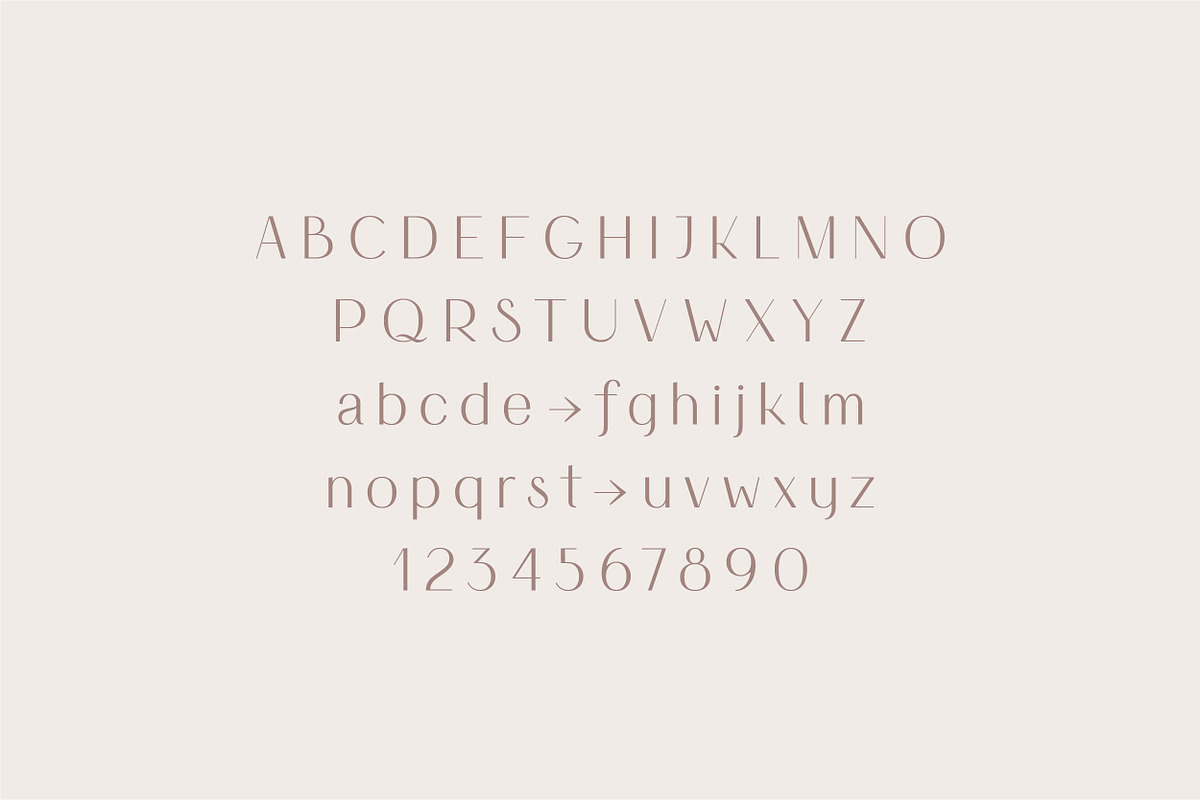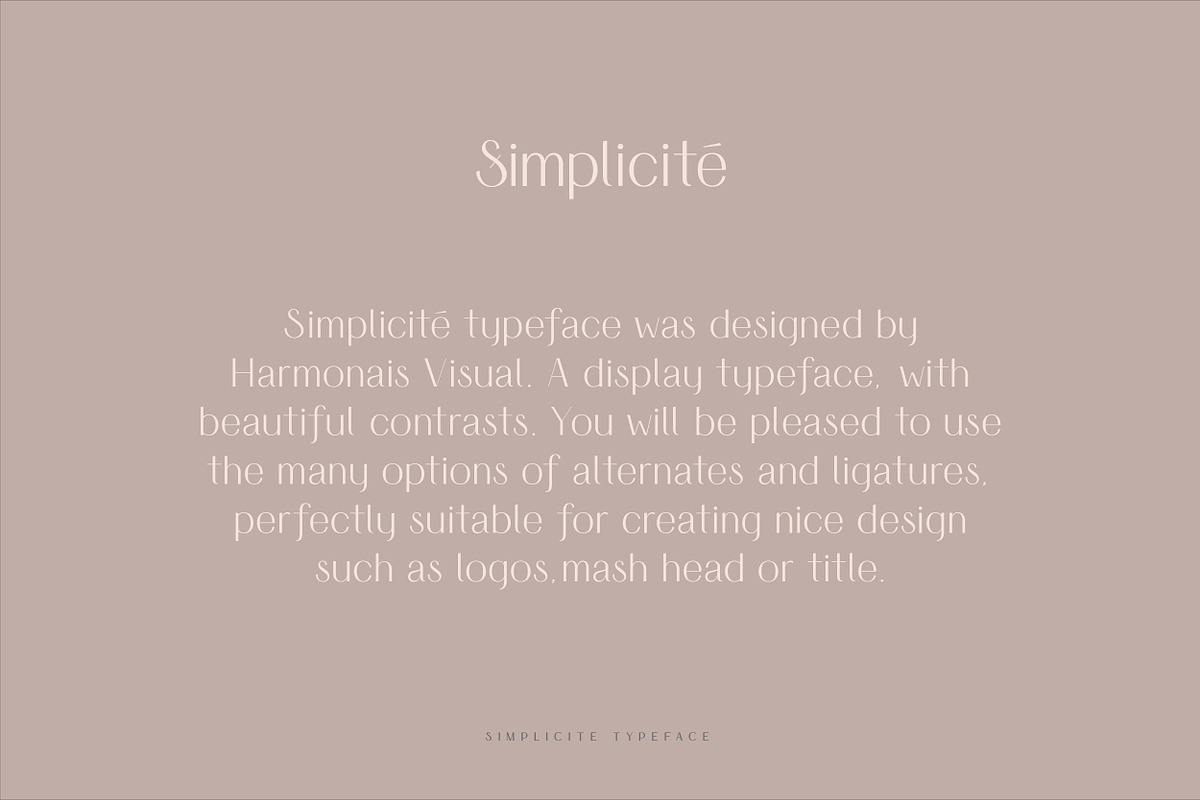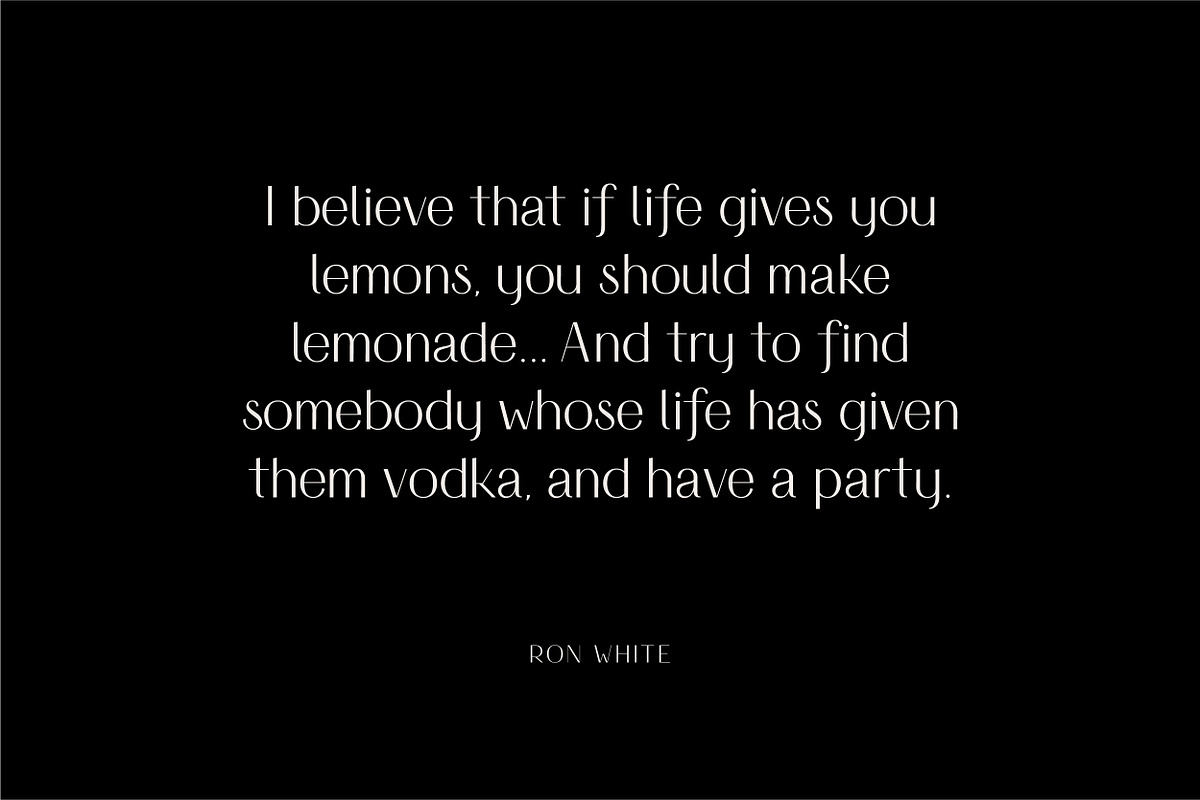
Simplicite typeface was designed by Harmonais Visual. A display typeface, with beautiful contrasts. You will be pleased to use the many options of alternates and ligatures, perfectly suitable for creating nice design such as logos, mash head or title.
Feature:
- Ligatures
- Alternates
- European languages